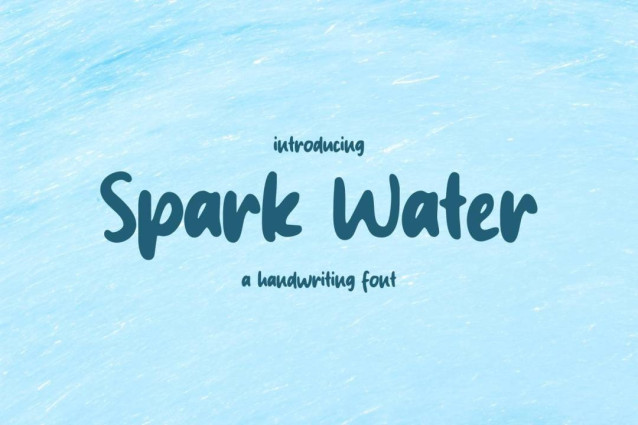
Spark Water Font
Spark Water Font is a simple and modern display font suitable for quotes, logos, headings, titles, and many more. Use it on any of your creative projects, and your designs will become outstanding!